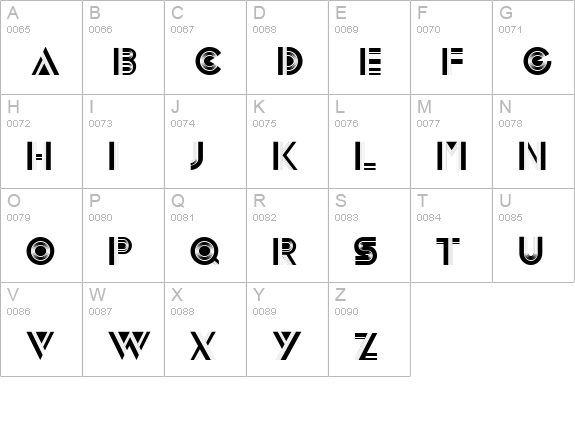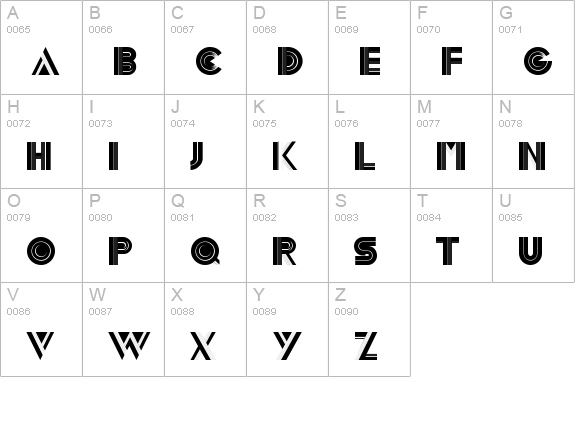
Innova Display Caps SSi Font Details
Innova Display Caps SSi font is a striking and charismatic typeface that effortlessly captures attention and adds a touch of elegance to any design project. With its bold and captivating letterforms, this font is perfect for creating eye-catching headlines, logos, posters, and more. This unique typeface offers a modern twist on classic display fonts, combining clean lines and subtle curves to create a harmonious balance between sophistication and contemporary design. The generous spacing between characters ensures maximum readability, making it an ideal choice for both print and digital applications. But what makes Innova Display Caps SSi font truly special is that it is freely available to download at FontsMarket.com. Yes, you read that right – this stunning font can be yours without any cost. Whether you are a designer, a student, or simply someone looking to add a touch of creativity to your personal projects, Innova Display Caps SSi font is the perfect solution. So why wait? Download Innova Display Caps SSi font today from FontsMarket.com and give your designs the professional edge they deserve. With its timeless appeal and a touch of modernity, this font is sure to make a lasting impression. Don't miss out on this fantastic opportunity to enhance your design arsenal with a truly remarkable font – and the best part is, it's completely free!